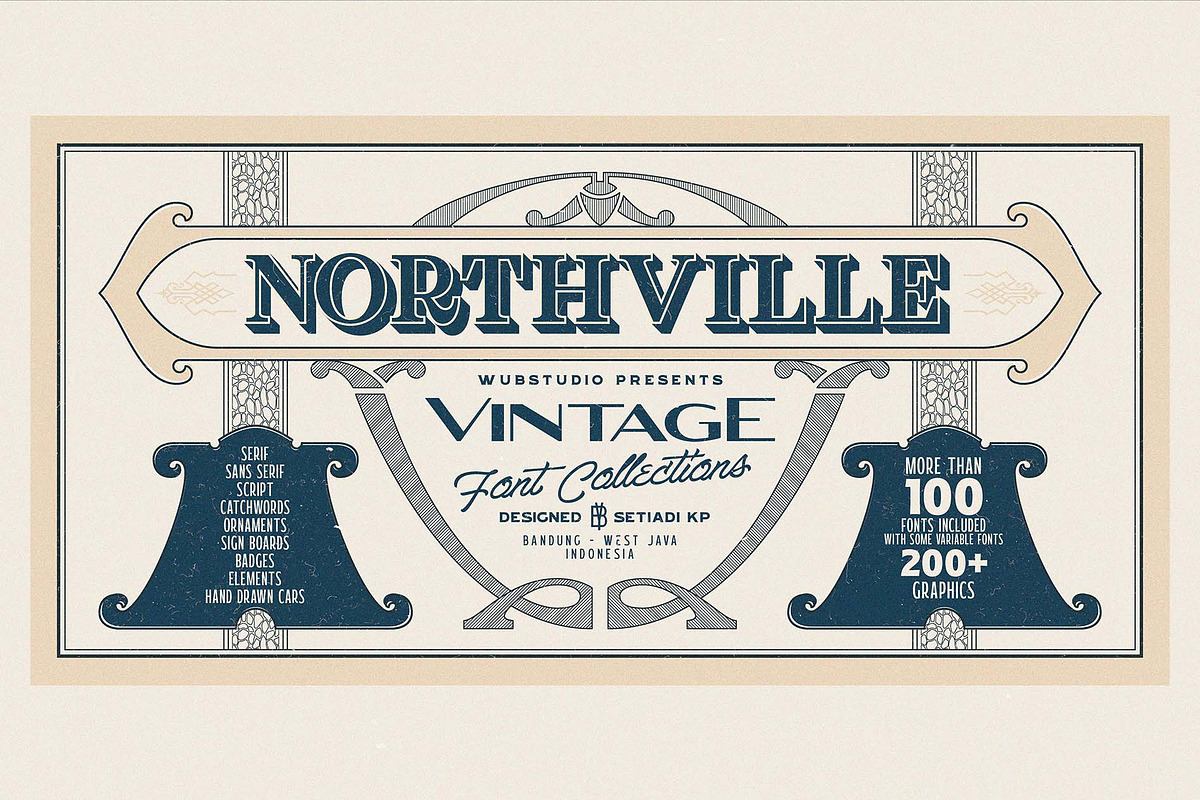
Northville Vintage Font Collections Free Download is a beautifully crafted set of typefaces inspired by classic vintage aesthetics. Featuring a mix of bold serifs, textured scripts, and retro display styles, this collection is ideal for logos, whiskey labels, apparel design, signage, and nostalgic branding projects.
Each font in the Northville set offers a unique personality while maintaining visual harmony across styles—making it perfect for layered typography or cohesive branding. Fully compatible with Mac and Windows, the bundle includes uppercase, lowercase, numerals, and multilingual support.